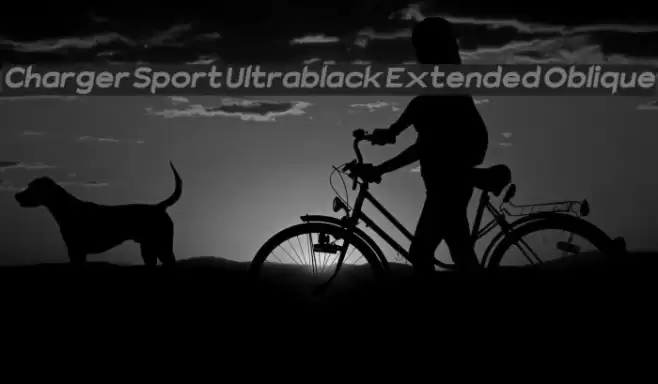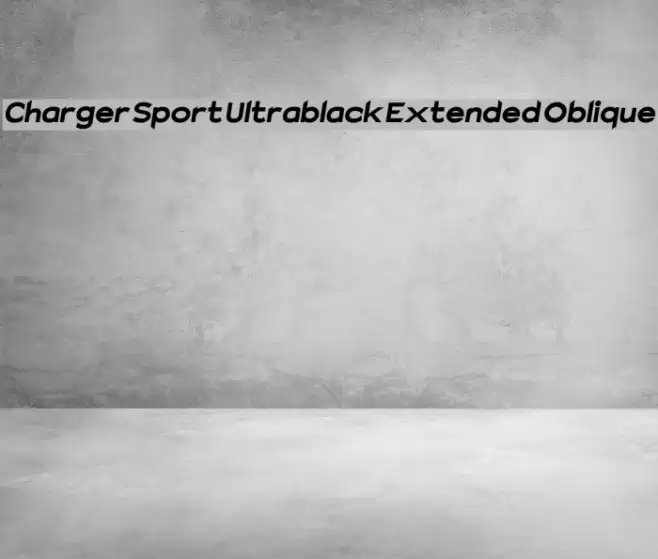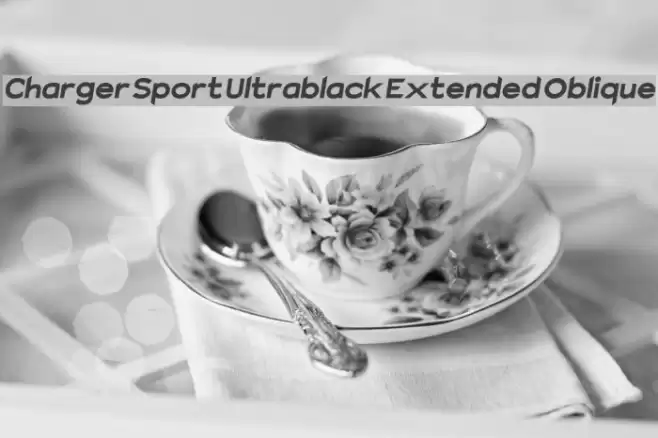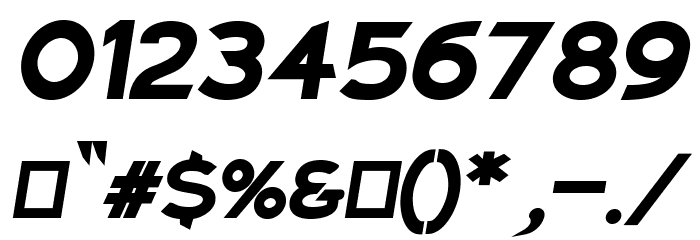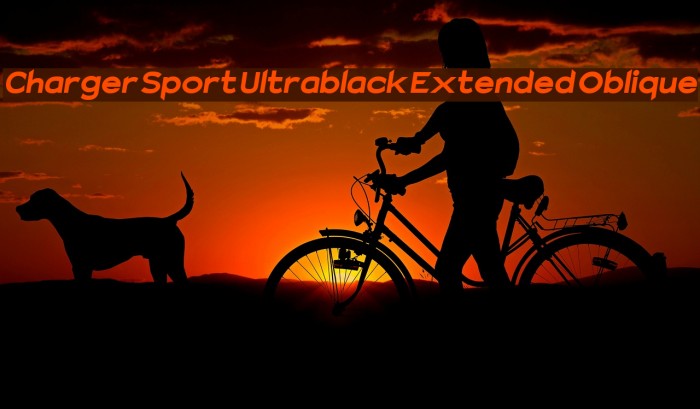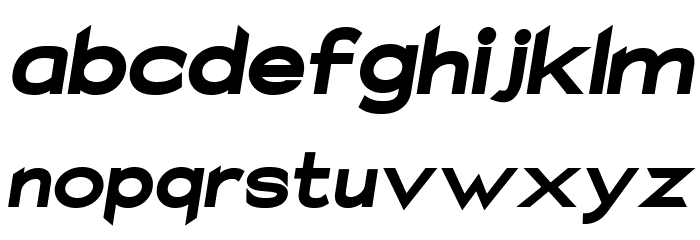
Charger Sport Ultrablack Extended Oblique Font
Charger Sport Ultrablack Extended Oblique Description
This font exhibits a bold and dynamic style with an oblique slant, giving it a sense of motion and energy. The characters are extended, providing a wide and impactful appearance. The strokes are thick and consistent, contributing to a strong visual presence. The uppercase and lowercase letters maintain a uniform design, with rounded edges that soften the overall look. The numerals and special characters are crafted with the same boldness, ensuring consistency across all elements. This font is ideal for projects that require a modern and sporty aesthetic.
A bold, oblique, and extended font with a sporty and dynamic style from Uncategorized fonts.
- Proposed Projects: Ideal for sports branding, dynamic posters, modern advertising, and impactful headlines.